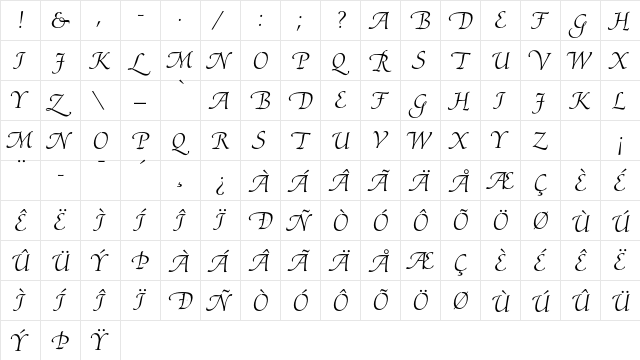
Ariadne LT Std Roman
| Designer | Gudrun Zapf von Hesse |
Design Context for Ariadne LT Std Typeface
Ariadne LT Std is a composed and adaptable typeface that performs quietly and consistently across a wide range of design contexts. The delicate stroke weight brings airiness and refinement to layouts.